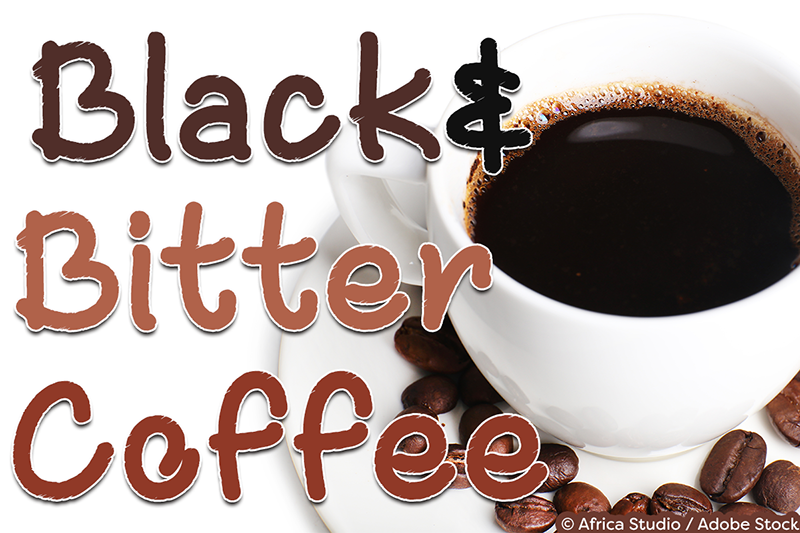
Black and Bitter Coffee Font
Tip: Font looks better in larger sizes so that the texture shows! I recommend 100pt or higher 😉
| Classification: | Handwritten Fonts, Script Fonts |